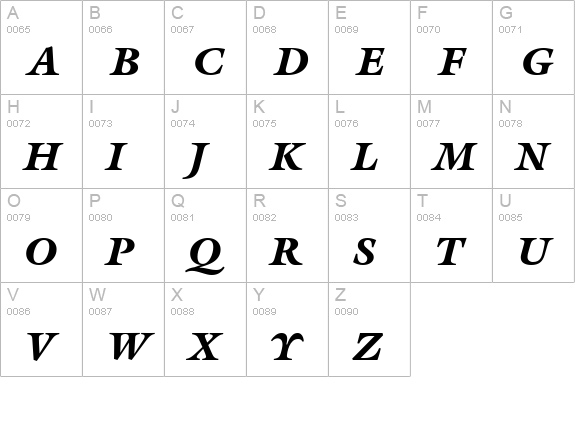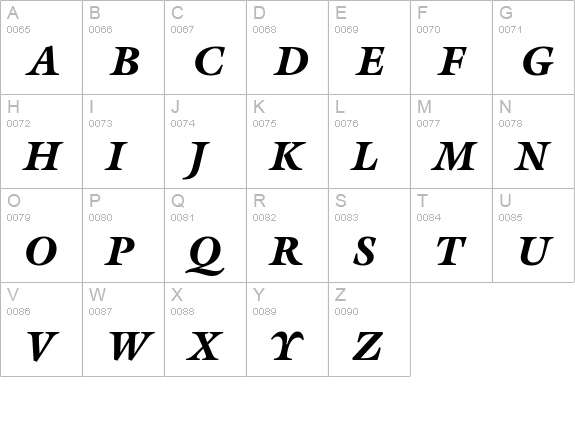
Acanthus Black SSi Black Italic is a maximum-weight, dramatic, italic variant in the Acanthus typeface family \xE2\x80\x94 well suited to maximum-impact headlines, posters, and packaging.
Acanthus Black SSi Black Italic font exudes elegance and sophistication with its dramatic and sleek design. The bold strokes and graceful curves of this typeface make it a perfect choice for projects that require a touch of sophistication and style. The italicized version adds a touch of flair and dynamism to any text, making it stand out on any platform. What's even better is that Acanthus Black SSi Black Italic font is available for free download at FontsMarket.com. So whether you're working on a professional project or a personal creative endeavor, you can easily access this stunning font without breaking the bank. Embrace the beauty and versatility of Acanthus Black SSi Black Italic font today and take your designs to the next level!